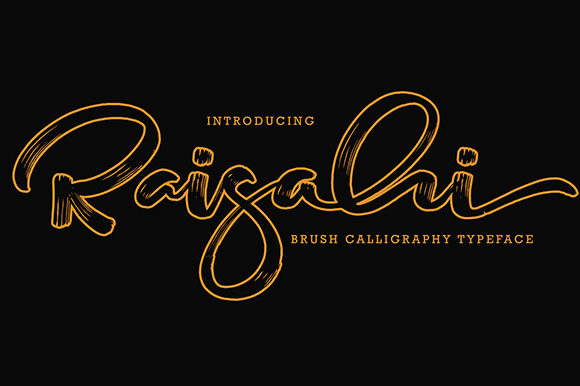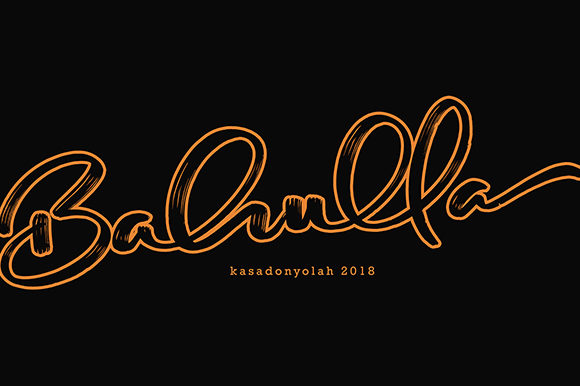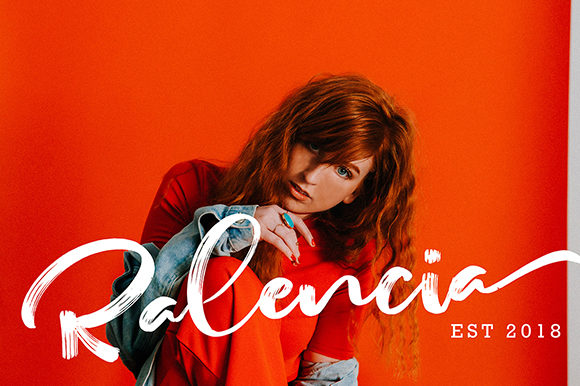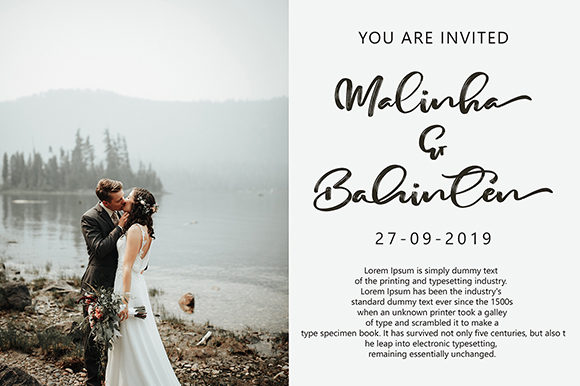
HomeScript FontsRaisahi Font Script Fonts Raisahi Font FacebookXPinterestWhatsApp Raisahi Font Poster 2 Raisahi Font Poster 3 Raisahi Font Poster 4 About Raisahi Font Raisahi is a bold and authentic handwritten font. Gall in love with its timeless elegance. DOWNLOAD ON CREATIVE FABRICAThis font is sold and delivered by Creative Fabrica. Font Canyon may earn a commission if you buy through this link. People also explored Liontin Font Loveliest Font Arkelogue Light Font Ruslanovic Font Avestrava Plain Font Dark Rokeser Font Selliboy Font Wild Dogs Font Ink Blossoms 303 0 TagsRaisahi Font Previous articleLulu-Lala FontNext articleDettiruka Font LEAVE A REPLY Cancel reply Comment: Please enter your comment! Name:* Please enter your name here Email:* You have entered an incorrect email address! Please enter your email address here Website: Save my name, email, and website in this browser for the next time I comment. Personal Use Free Bright Dreams Personal Use Free Read more about this font Muthiara Font Personal Use Free Read more about this font Cloudy Night Personal Use Free Read more about this font Critical Personal Use Free Read more about this font BLOG To increase your work productivity, choose the most readable fonts. In today's fast-paced work environment, where digital communication and information consumption are integral to our daily routines, the choice of fonts can significantly impact... 5 Fonts That Will Dominate Design Trends in 2026 Using Fonts in Digital Marketing: Tips to Strengthen Your Brand Identity Modern Sans-Serif Fonts That Brands Love in 2025